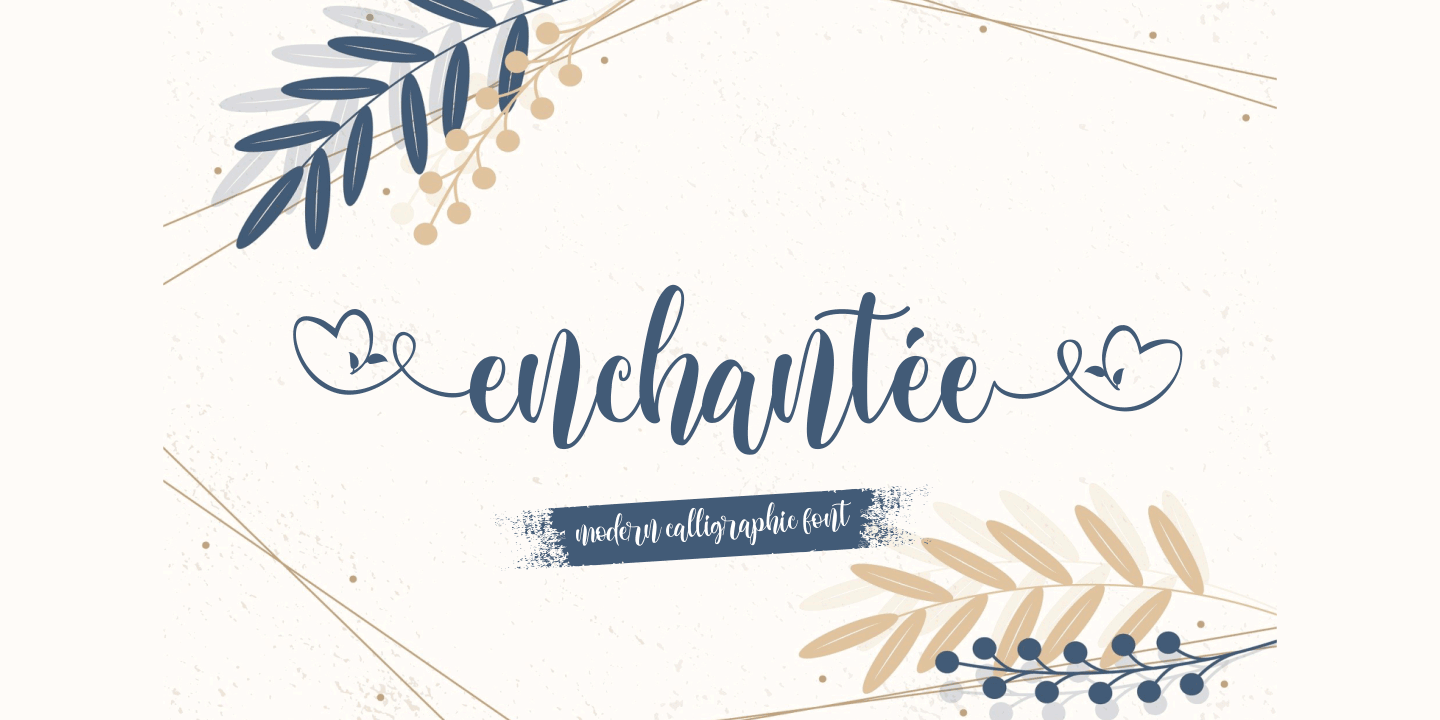
Enchantee Font is an exquisitely elegant and sophisticated typeface, perfect for designs that demand a touch of magic, luxury, and artistic grace. Imagine it delicately adorning wedding invitations, providing an ethereal yet impactful presence for high-end fashion branding, or adding an enchanting touch to packaging for premium beauty products. Its refined lines, often flowing swashes, and unique character details make it ideal for high-impact headlines, editorial layouts that require a sophisticated touch, and any digital or print media where a sense of understated glamour and artistic individuality is desired. From exclusive event invitations to artistic website banners, this font infuses designs with an undeniable sense of charm and visual appeal.
Why Enchantee Font is So Exciting
What makes Enchantee Font so exciting is its remarkable ability to convey luxury and dreamlike sophistication with a delicate touch. It often features graceful curves, slender strokes, and meticulous attention to detail that make each letterform a work of art. This isn't a loud or flamboyant font; its power lies in its subtle elegance and refined presence, making it perfect for conveying a sense of quality, exclusivity, and timeless beauty. It can elevate any design, making your message feel more premium and carefully curated, and leaving a lasting impression of refined taste. The inclusion of beautiful stylistic alternates and ligatures often allows for even greater customization and an authentically handwritten feel.
Enchantee Font Family
The Enchantee Font family typically focuses on delivering its distinctive elegant style with high precision and visual impact. While it might not always have an extensive range of traditional weights like a workhorse text font, you can generally expect to find a finely crafted Regular or Medium weight. Often, this is accompanied by a more delicate Light or a more impactful Bold version. Crucially, it usually includes a rich array of stylistic alternates and ligatures. These variations are specifically designed to highlight its unique aesthetic, allowing designers to create compelling headlines, subheadings, and decorative elements that maintain the font's luxurious and refined charm across different applications.